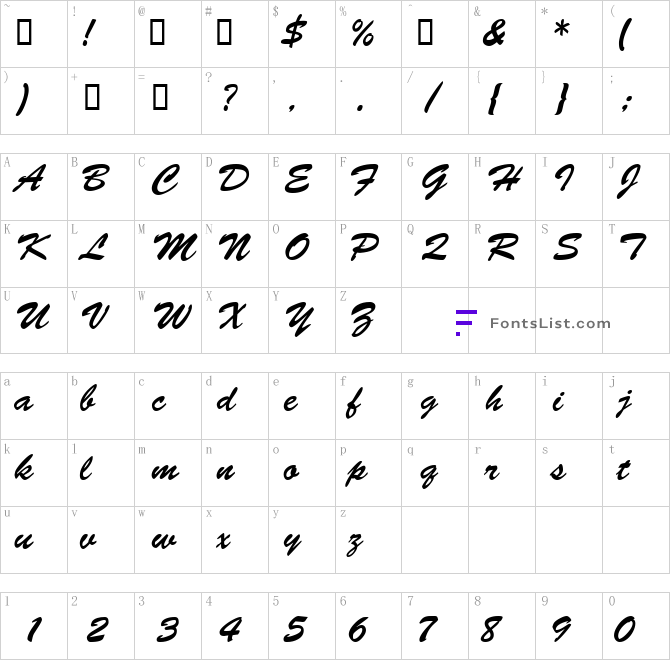
- Font Name:Bankoli
Bankoli-Bold.ttf is a very beautiful artistic font, Bankoli-Bold.ttf is widely used in the design and printing of various books and pictures,Bankoli-Bold.ttf has a strong visual impact,Bankoli-Bold.ttf is a commonly used font in newspapers, magazines and books, and is used in posters, e-commerce Poster design, store design, logo design, font design and other fields.Bankoli-Bold.